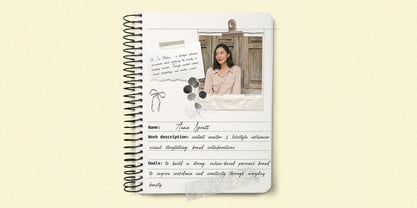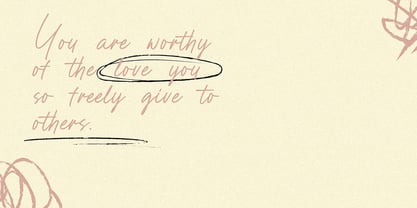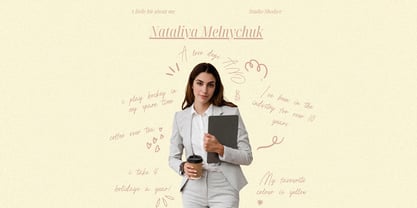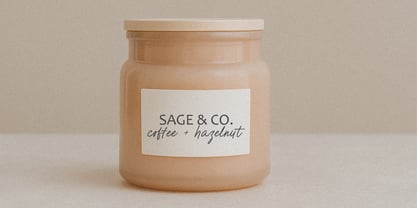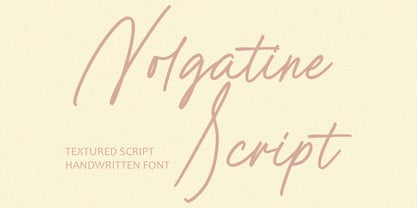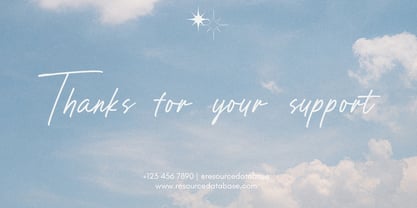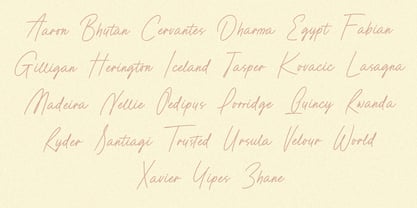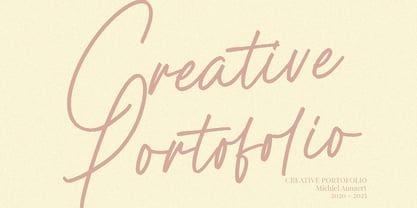
Nolgatine
by Arendxstudio
The Nolgatine Font Family was designed by Asep Rendi and published by Arendxstudio. Nolgatine contains 1 styles. More about this family
Description:
Nolgatine Script is a refined handwritten font with a natural textured flow, perfect for adding a personal and sophisticated touch to your designs. Its graceful letterforms make it ideal for branding, invitations, social media posts, and editorial layouts, offering both charm and versatility for various creative projects.
Designers: Asep Rendi
Foundry: Arendxstudio